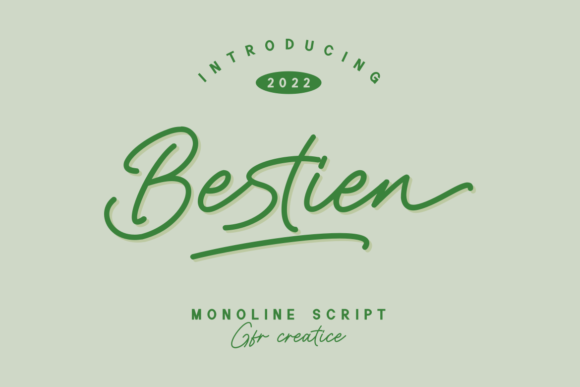
Unleash Your Creativity with Bestien Font: A Stylish and Thin Lettered Script Font
Are you a designer or crafter looking for a font that can elevate your designs to the next level? Look no further than Bestien Font, a stylish and thin lettered script font that is sure to captivate your audience. With its ravishing style and PUA encoding, Bestien Font is the perfect choice for creating gorgeous designs that stand out from the crowd.
What Makes Bestien Font So Special?
Bestien Font is a unique and elegant script font that is designed to add a touch of sophistication to any design project. Its thin lettering and stylish curves make it perfect for creating beautiful headings, titles, and quotes. Whether you’re working on a branding project, a wedding invitation, or a social media graphic, Bestien Font is sure to impress.
Key Features of Bestien Font
- Stylish and Thin Lettered Script Font: Bestien Font features a beautiful, thin lettered script style that is perfect for creating elegant designs.
- PUA Encoded: Bestien Font is PUA encoded, which means you can access all glyphs and swashes with ease. This makes it easy to customize your designs and add your own personal touch.
- Ravishing Style: Bestien Font has a ravishing style that is sure to captivate your audience. Its unique curves and lines make it perfect for creating designs that stand out from the crowd.
How to Use Bestien Font in Your Designs
Using Bestien Font in your designs is easy. Here are a few tips to get you started:
- Pair it with Other Fonts: Bestien Font pairs well with other fonts, such as sans serif fonts and bold fonts. Experiment with different combinations to find the perfect look for your design.
- Use it for Headings and Titles: Bestien Font is perfect for creating beautiful headings and titles. Use it to add a touch of elegance to your designs.
- Add Swashes and Glyphs: Bestien Font’s PUA encoding makes it easy to add swashes and glyphs to your designs. Use these to add a personal touch to your designs.
Why Designers and Crafters Love Bestien Font
Designers and crafters love Bestien Font for its unique style and versatility. Here are a few reasons why:
- Unique Style: Bestien Font has a unique style that sets it apart from other fonts. Its thin lettering and stylish curves make it perfect for creating designs that stand out.
- Versatility: Bestien Font is versatile and can be used in a variety of design projects, from branding and advertising to wedding invitations and social media graphics.
Bestien Font is a stylish and thin lettered script font that is perfect for designers and crafters looking to elevate their designs. With its ravishing style, PUA encoding, and ease of use, Bestien Font is the perfect choice for creating gorgeous designs that stand out from the crowd. Whether you’re working on a branding project, a wedding invitation, or a social media graphic, Bestien Font is sure to impress.